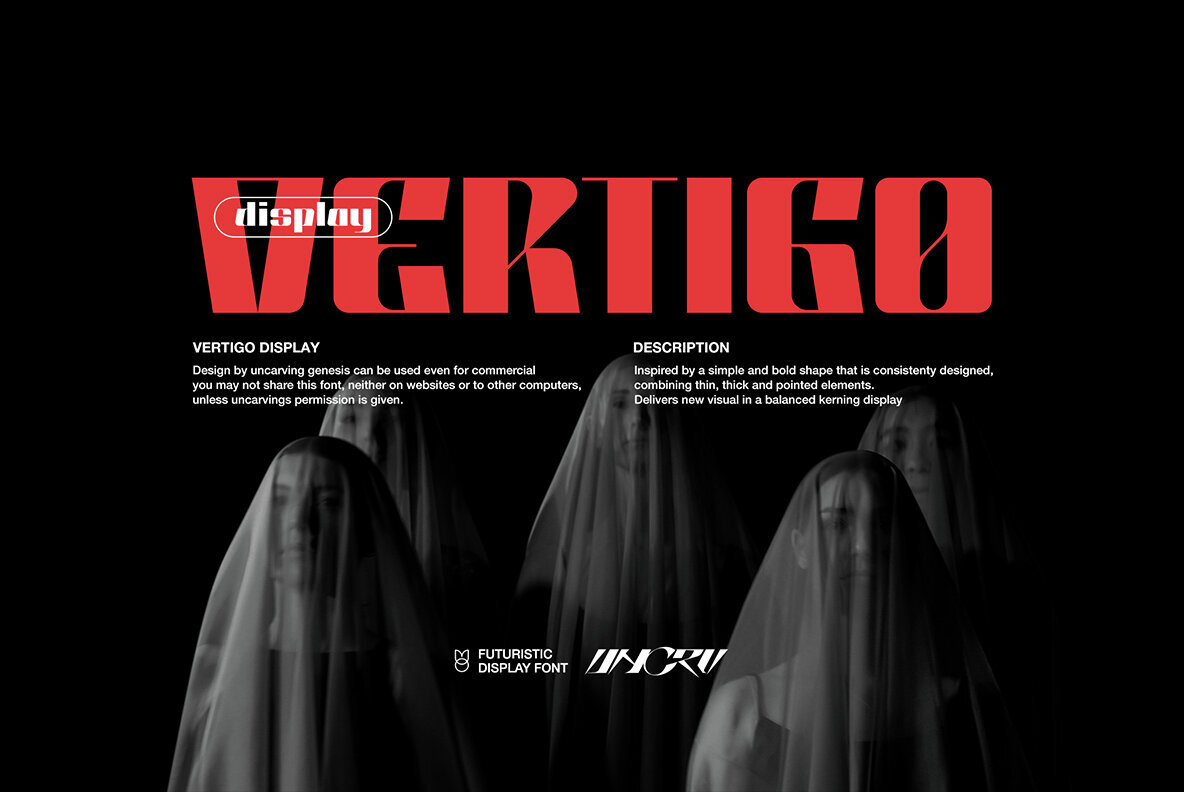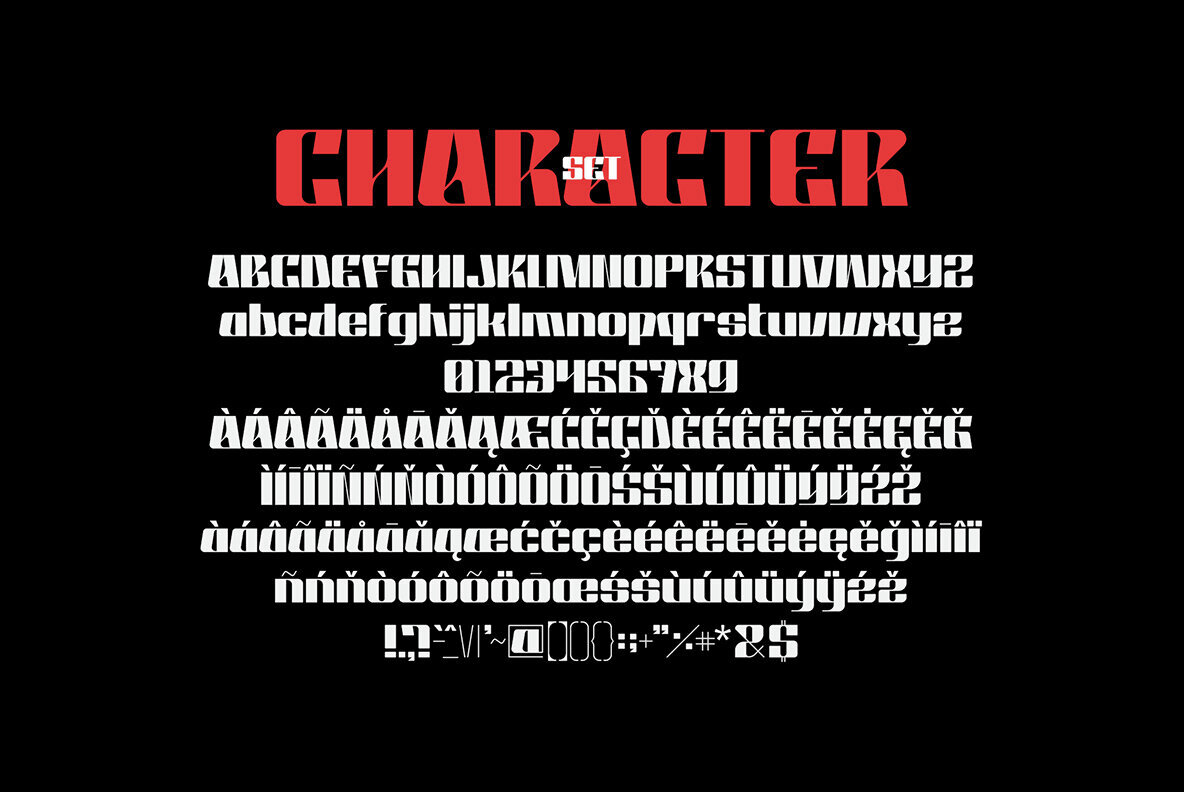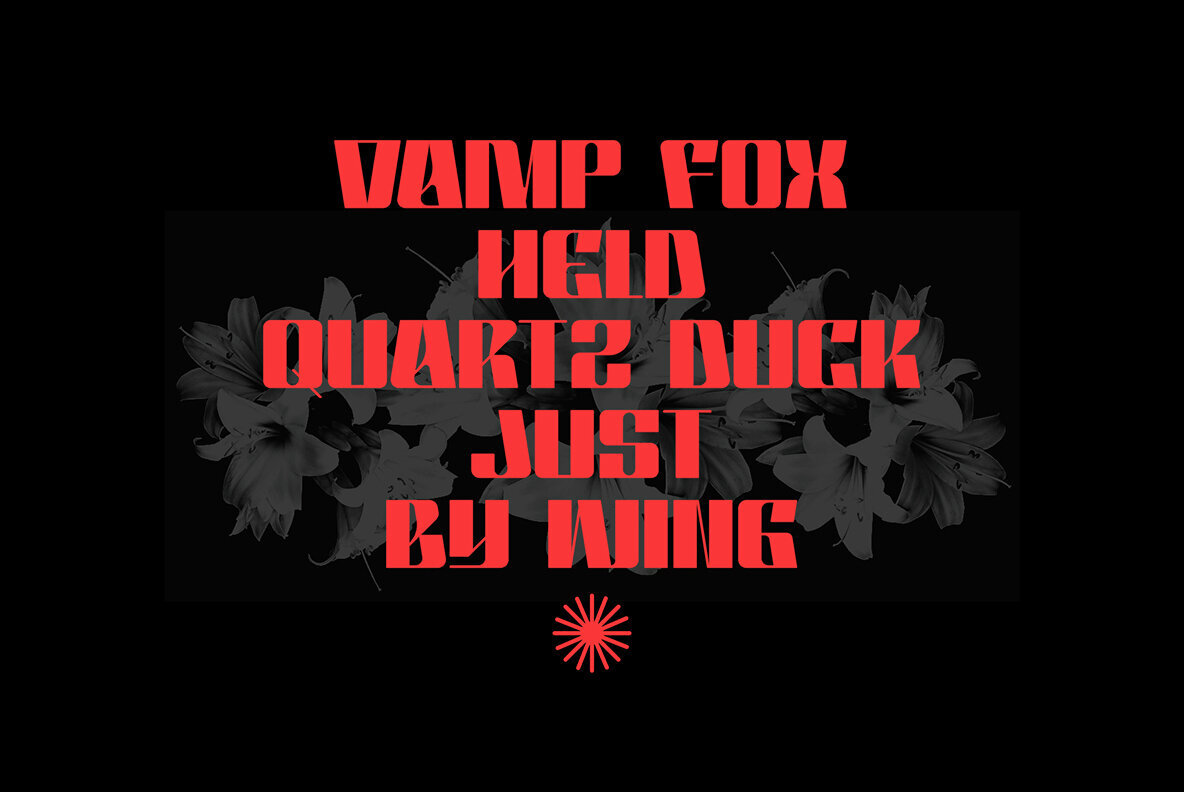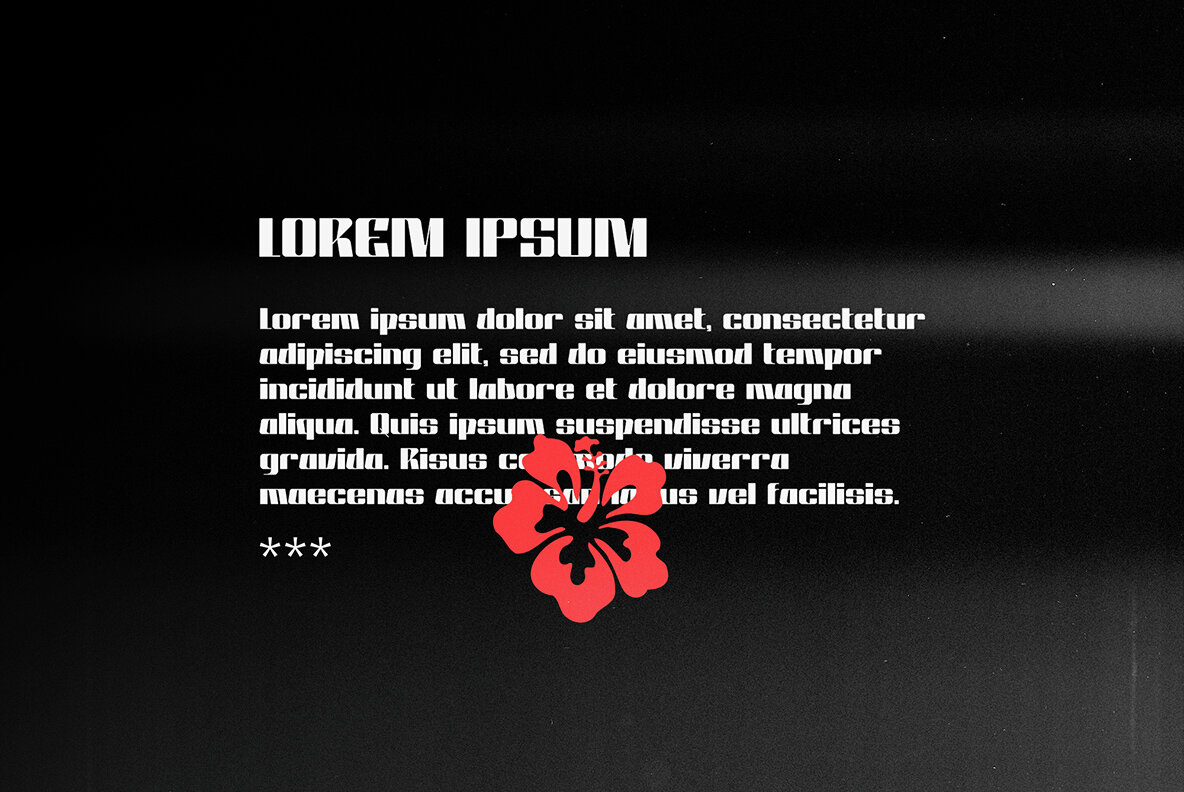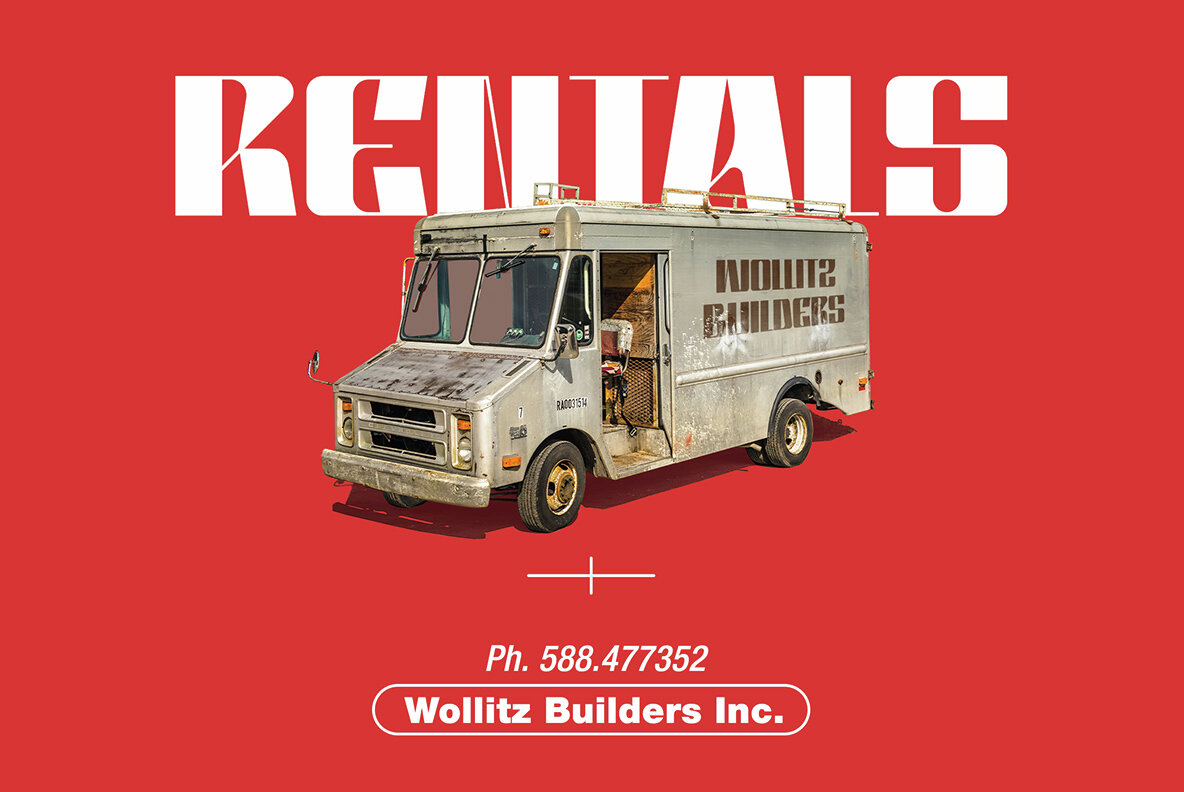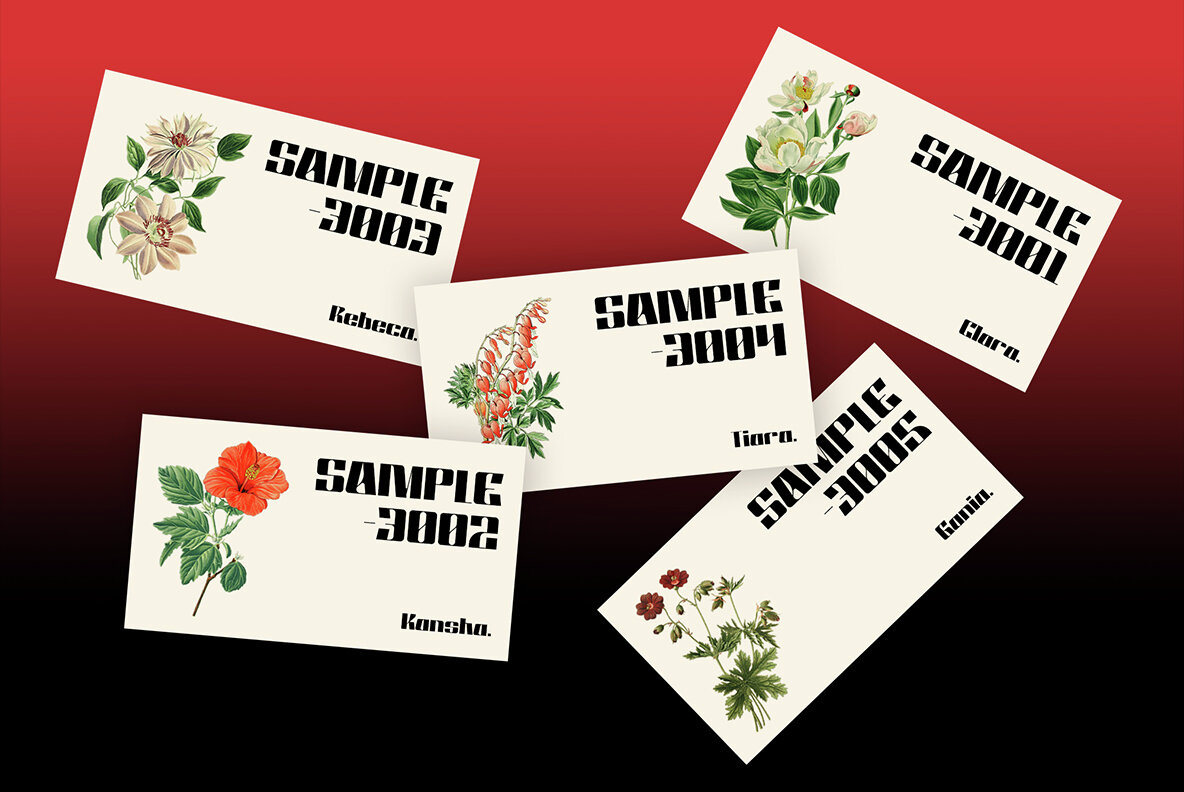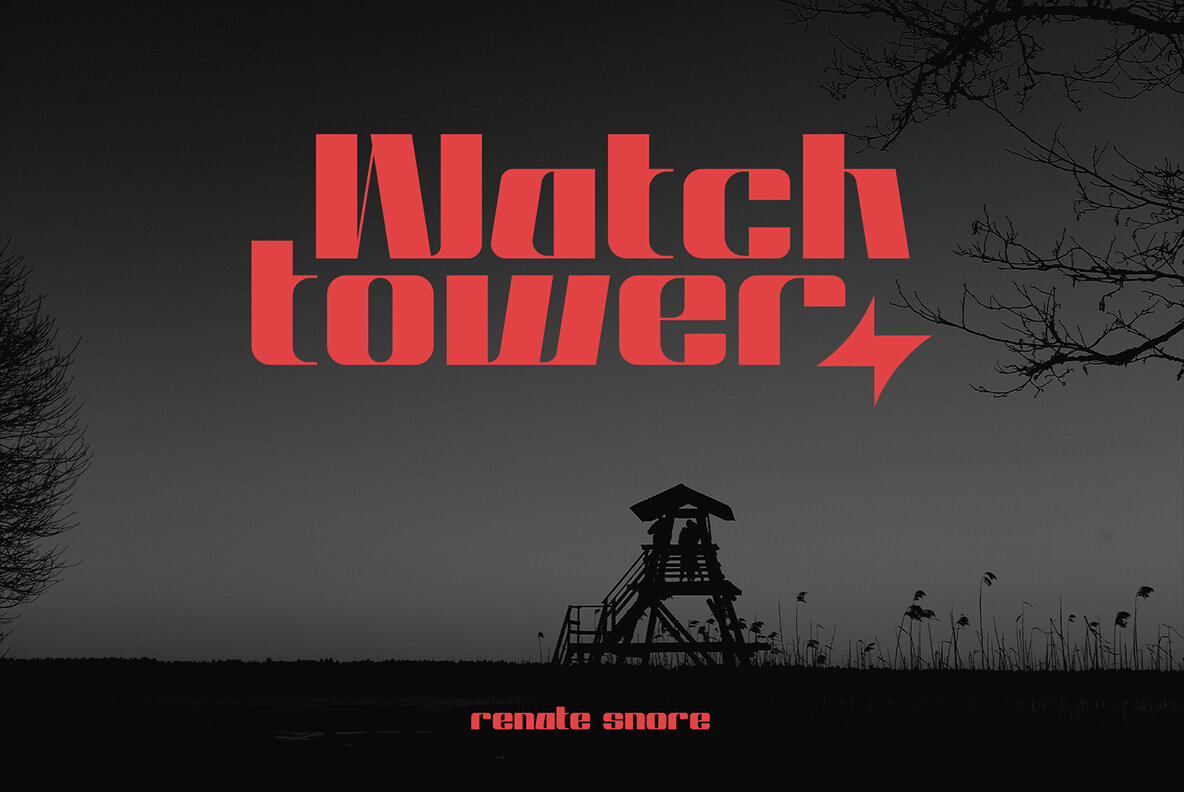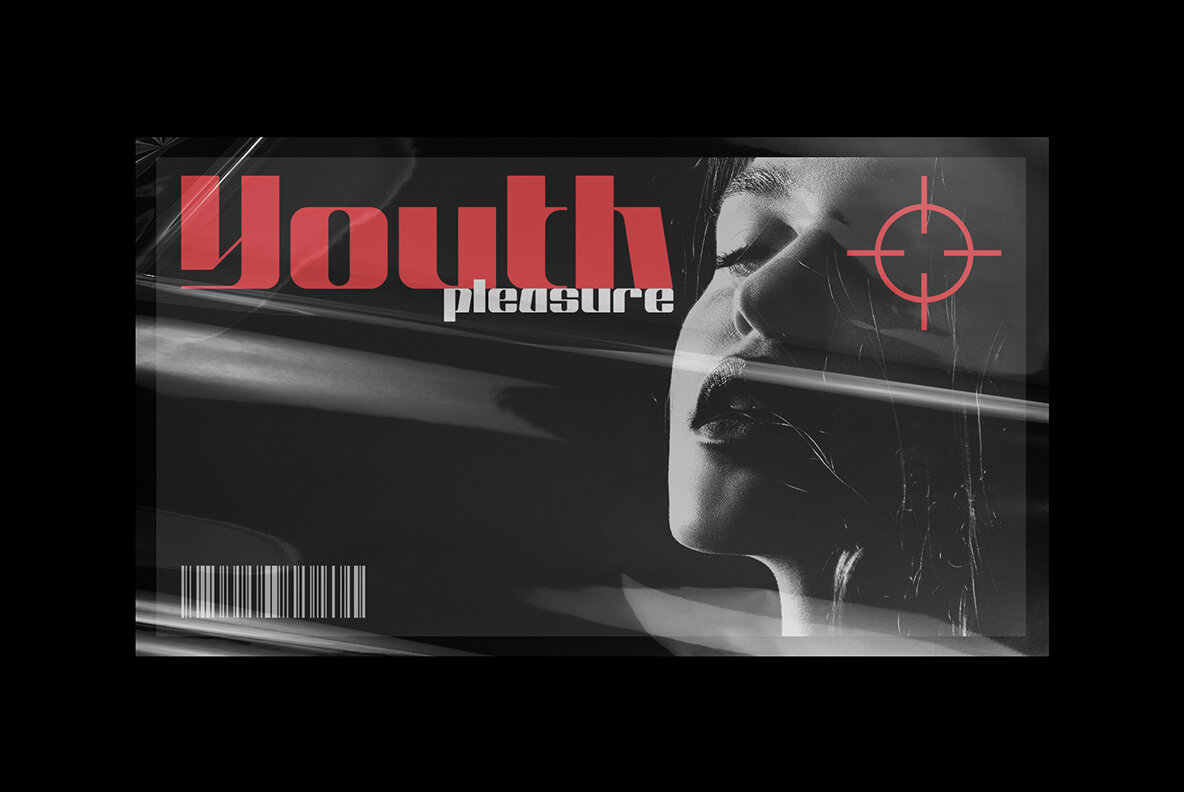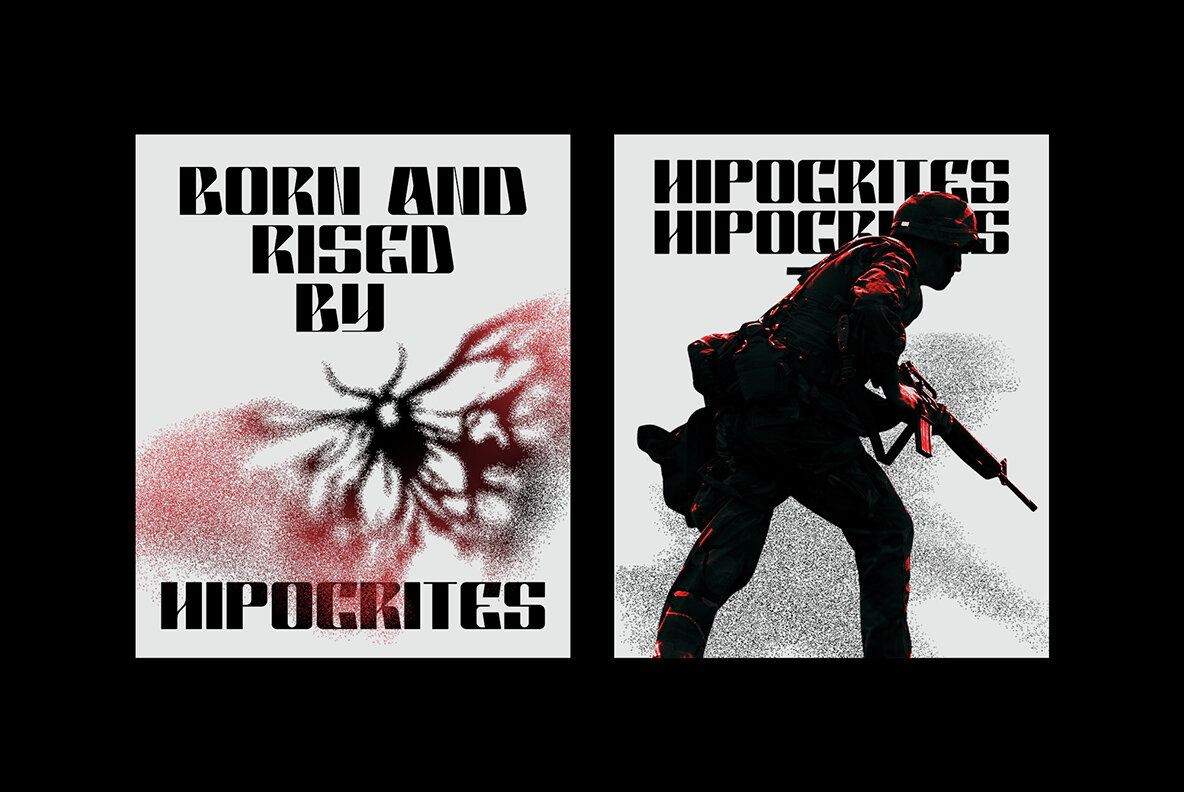
Vertigo Font
VERTIGO
The Vertigo font by Uncarving Nation offers a unique balance of simple and bold design elements, making it an excellent addition to any designer's toolkit. This typeface is meticulously crafted to combine thin, thick, and pointed features, resulting in a visually striking kerning display. Its sleek and consistent style makes it suitable for a range of creative projects, including commercial use.Vertigo Font
Uncarving Nation is a type foundry based in Jepara, Indonesia, Its aim is to explore typography based on elements that the founder, as a graphic designer, finds useful and enjoyable.Over the last two years, he has discovered many new aspects of typography from various genres, which he combines to create fr...